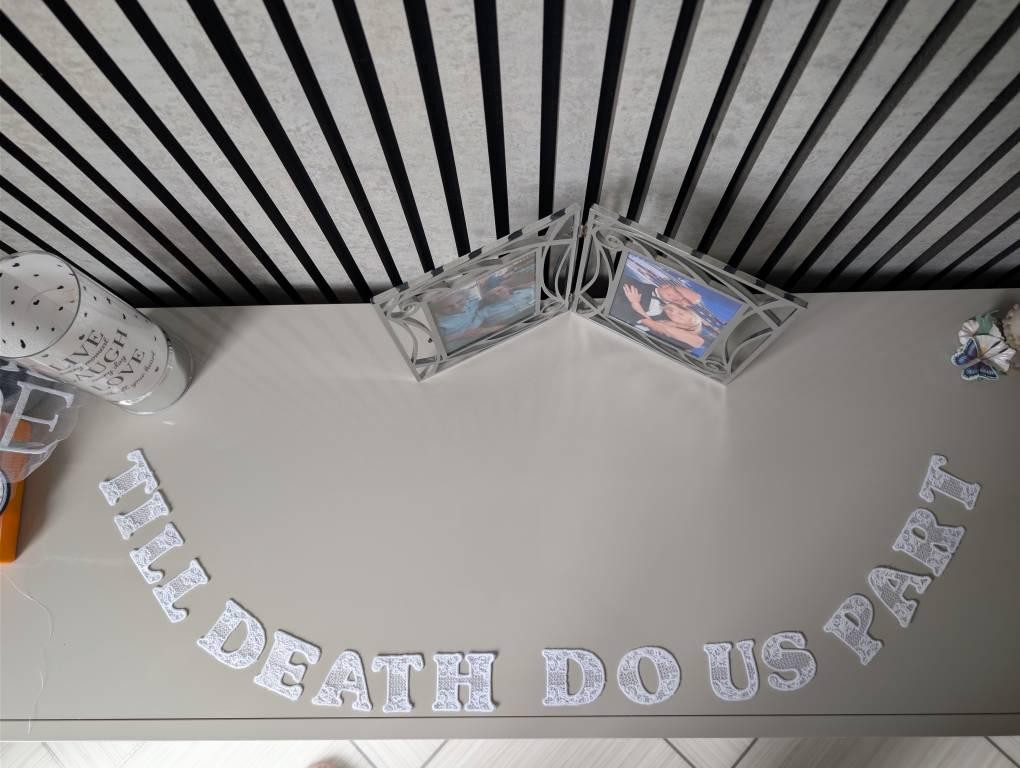
Lace Font FSL free standing lace monogram initial Font machine embroidery designs, frozen lacy alphabet letters assorted sizes, BX included!
Uppercase A-Z
Freestanding lace! The letters are stitched onto a non-woven water-soluble stabilizer.